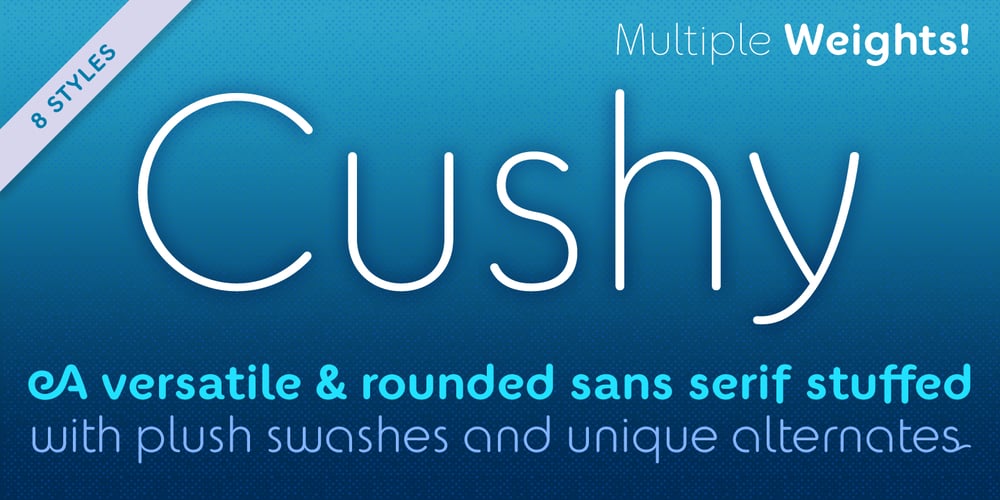
Cushy Font Family was designed by Jeff Kahn and published by Jeff Kahn. Cushy contains 7 styles and family package options. Cushy is a versatile san serif font that’s stuffed with numerous plush swashes and unique alternates. But it’s not limited to display use only. Cushy is well suited for text or display applications. Cushy’s large “x” height, square proportions, and generous even weight enhance its legibility in all point sizes. The font’s bold personality radiates friendliness and warmth. Clean classic proportions lend it authority and vigor. Cushy bends around corners and flows throughout. You won’t find any sharp corners. The diagonal strokes possess a subtle arch and enhance its characteristics. Available in 8 styles with multiple weights: Thin, Light, Regular, Bold, including italics. Cushy includes stylistic sets, stylistic alternates, swashes, ligatures & discretionary ligatures, and foreign language diacritic glyph support. Cushy provides 40 distinctive swash options, 17 ligatures, and 13 alternates. Weights include Thin, Light, Regular, Bold, with italics. Cushy is suited for corporate ID, retail, magazines, books, brochures, websites, logotypes, etc.